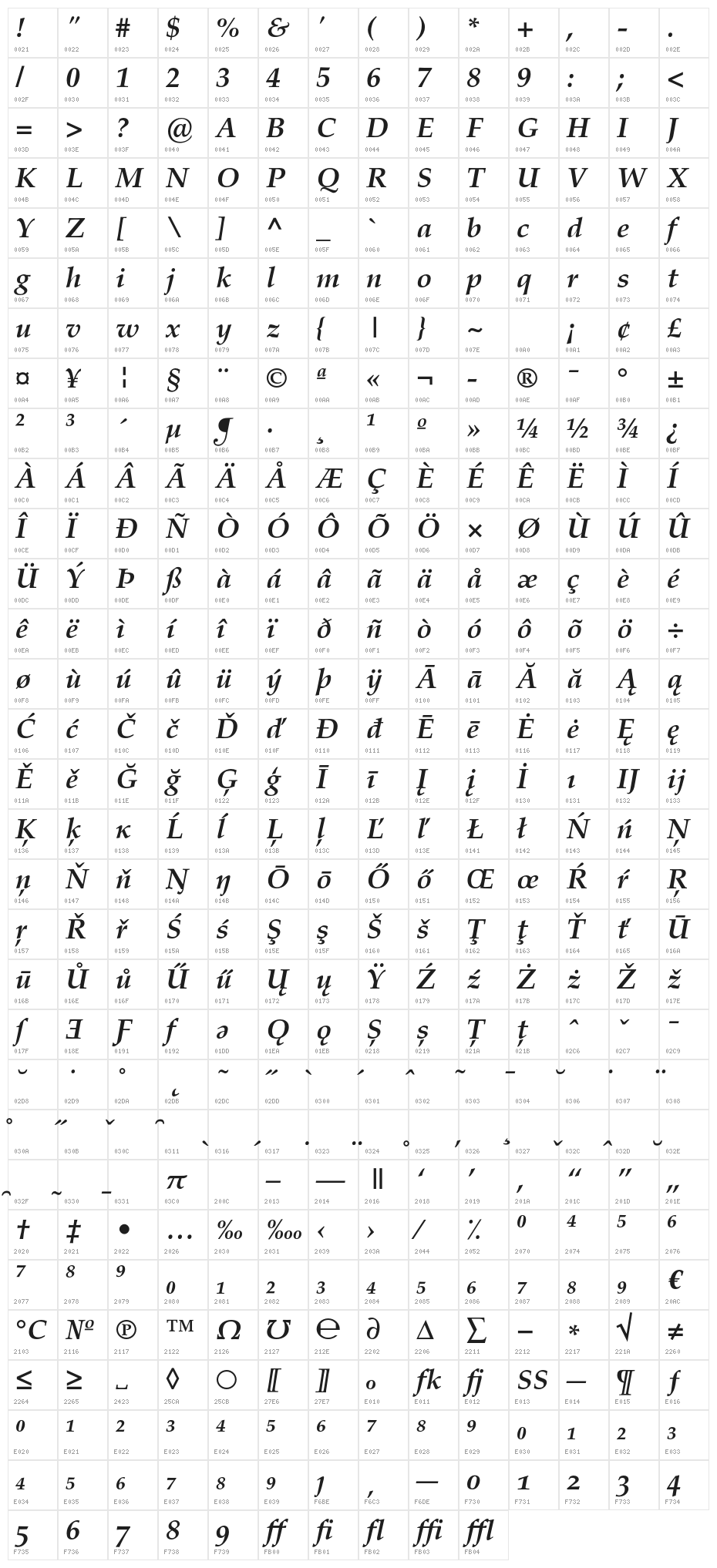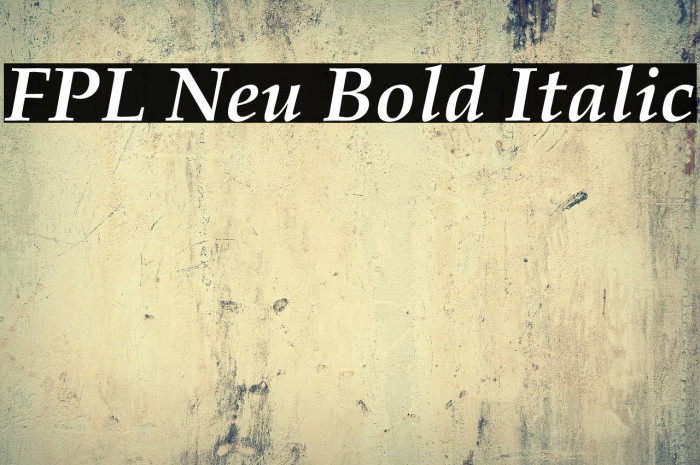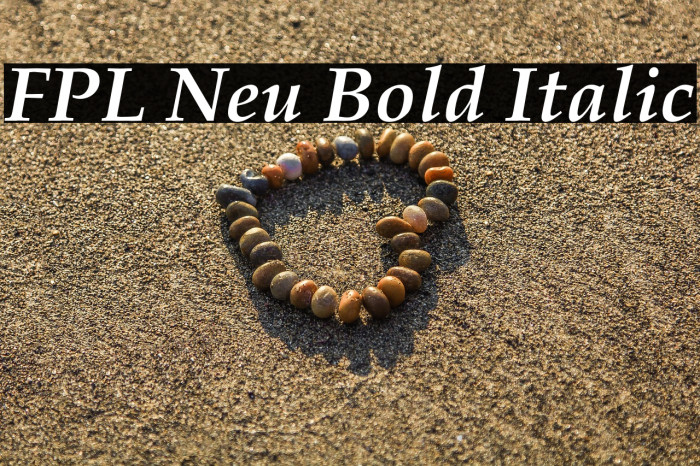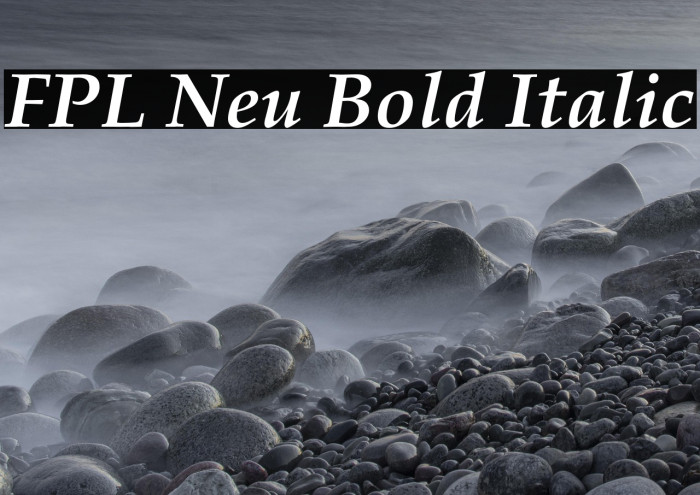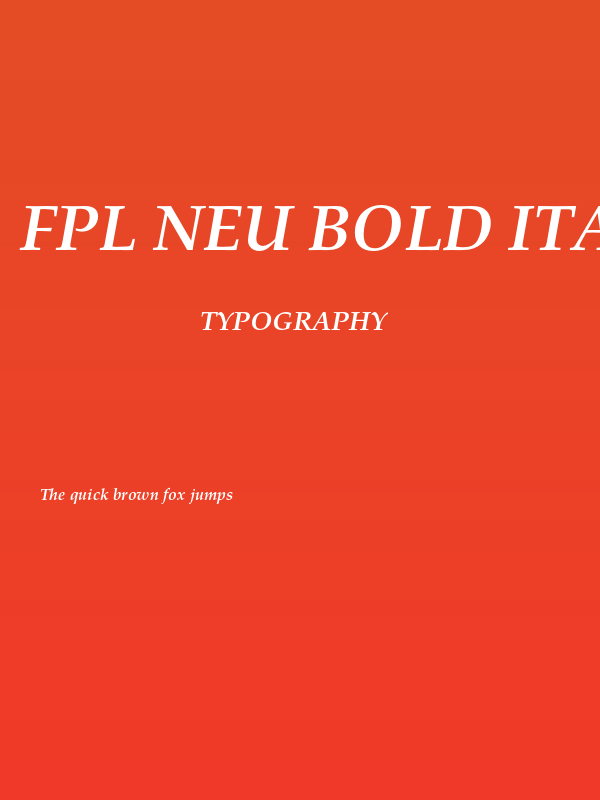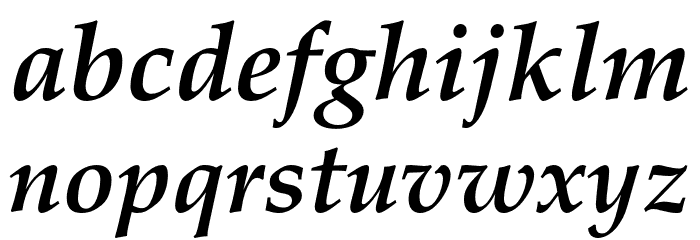
FPL Neu Bold Italic Font
FPL Neu Bold Italic Description
This font features a classic serif design with a bold and italicized style, giving it a strong and elegant appearance. The serifs are pronounced, adding a touch of sophistication and readability. The italic slant provides a dynamic and flowing feel, making it suitable for both formal and creative applications. The characters are well-proportioned, with a consistent stroke width that enhances legibility. The numerals and special characters are designed to match the overall aesthetic, ensuring a cohesive look across all text elements.
| Proposed Projects | Ideal for book covers, formal invitations, branding, and editorial design. |